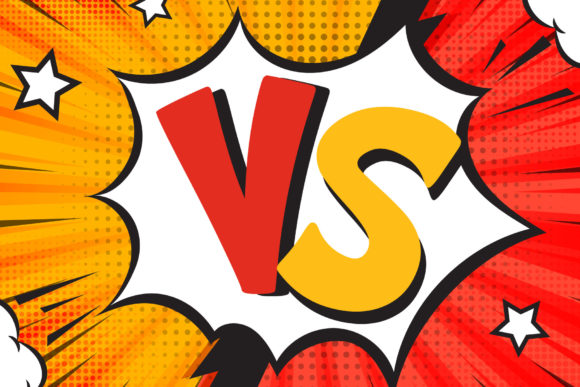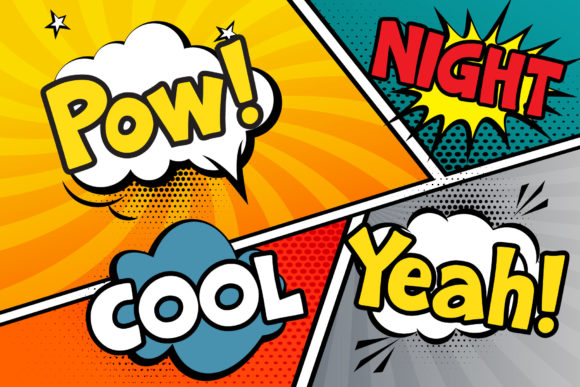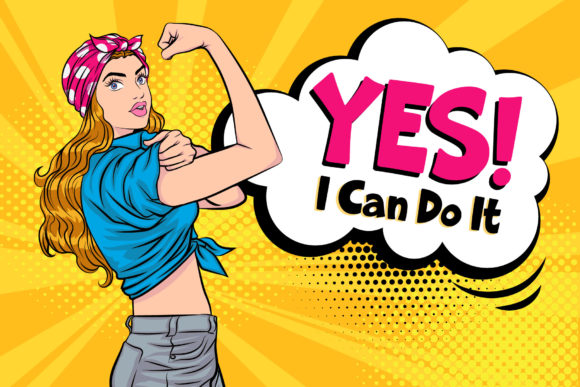
Introducing Comic World Font: The Ultimate Display Font for Dramatic Emphasis
Are you a designer or crafter looking for a font that can add a touch of vintage charm to your creations? Look no further than Comic World Font, a cool and stylish display font that’s perfect for titles or words that need a more dramatic emphasis. In this article, we’ll take a closer look at Comic World Font, its features, and how it can elevate your designs to the next level.
What is Comic World Font?
Comic World Font is a vintage-styled display font that’s designed to add a touch of nostalgia and playfulness to your designs. With its bold and eye-catching lettering, this font is perfect for creating titles, headings, or emphasis text that demands attention. Whether you’re working on a graphic design project, crafting a logo, or creating digital art, Comic World Font is a versatile and reliable choice.
Key Features of Comic World Font
• Vintage Style: Comic World Font boasts a unique, vintage-inspired design that’s reminiscent of classic comic books and retro posters.
• Display Font: This font is specifically designed for display purposes, making it perfect for titles, headings, and emphasis text.
• Cool and Stylish: Comic World Font has a cool and stylish vibe that’s sure to add a touch of personality to your designs.
• High-Quality Design: This font is meticulously crafted with attention to detail, ensuring a high-quality design that’s both legible and visually appealing.
Why Choose Comic World Font?
So, why should you choose Comic World Font for your design projects? Here are just a few reasons:
• Enhance Your Designs: Comic World Font has the potential to enhance any creation, adding a touch of drama and emphasis to your text.
• Perfect for Dramatic Emphasis: This font is specifically designed for dramatic emphasis, making it perfect for titles, headings, or words that need to stand out.
• Versatile and Reliable: Comic World Font is a versatile and reliable choice that can be used across a range of design projects, from graphic design to digital art.
• Adds a Touch of Personality: This font adds a touch of personality to your designs, making them more engaging and memorable.
How to Use Comic World Font
Using Comic World Font is easy! Here are a few tips to get you started:
• Use for Titles and Headings: Comic World Font is perfect for titles and headings, adding a touch of drama and emphasis to your text.
• Experiment with Colors and Textures: Try experimenting with different colors and textures to add depth and interest to your designs.
• Pair with Other Fonts: Comic World Font pairs well with other fonts, so feel free to experiment with different combinations to create a unique look.
In conclusion, Comic World Font is a cool and stylish display font that’s perfect for designers and crafters looking to add a touch of vintage charm to their creations. With its bold and eye-catching lettering, this font is sure to enhance any design, adding a touch of drama and emphasis to your text. Whether you’re working on a graphic design project, crafting a logo, or creating digital art, Comic World Font is a versatile and reliable choice that’s sure to become a valuable asset in your font library.